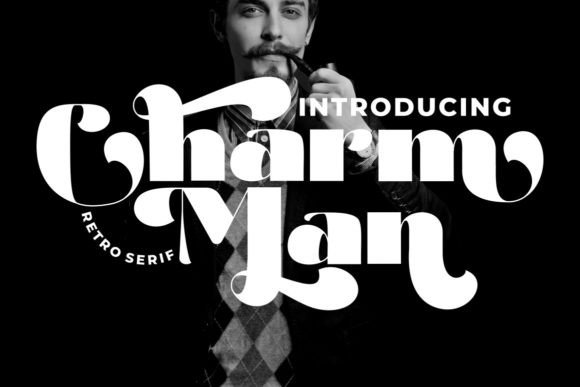
In a world of digital monotony, where fonts often blend into a sea of homogeneity, Charm Man Font stands out as a beacon of creativity and audacity. Step into a realm where your designs transcend the ordinary, where every word carries the weight of visual impact, and every letter dances with a rhythm all its own.
Crafted by the visionary hands of putracetol, Charm Man Font is a bold and captivating display font that will leave an indelible mark on your audience. Its retro-style elegance evokes a sense of nostalgia, while its contemporary flair ensures it remains firmly rooted in the present. This font is not just a collection of characters; it's a gateway to a world of boundless imagination.
With Charm Man Font, your words will command attention, your ideas will ignite passion, and your designs will leave a lasting impression. Imagine the impact of a film title rendered in this font, each letter radiating an aura of intrigue and adventure. Picture a poster emblazoned with a message that leaps off the page, demanding to be seen and remembered. Envision a social media post that captivates your audience with its visually stunning typography.
Charm Man Font is not merely a font; it's an artistic tool that empowers you to transform the ordinary into the extraordinary. Its versatility knows no bounds, lending itself effortlessly to a myriad of creative endeavors. From logos and branding to posters and packaging, from web design to social media campaigns, Charm Man Font has the ability to elevate any project to new heights of visual appeal.
Unleash your creativity and let Charm Man Font be your muse. Allow its bold strokes and playful curves to guide you towards designs that resonate with your audience. With this font at your disposal, you'll discover a newfound passion for typography, a deeper appreciation for the power of visual storytelling, and an unwavering belief in your ability to create designs that leave an indelible mark on the world.